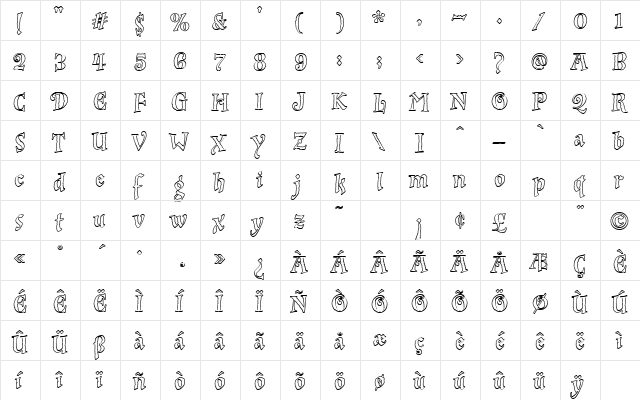
InkPotOutline Regular
Design Context for InkPotOutline Typeface
InkPotOutline brings ornamental detail and strong personality to headlines and identities, where visual impact matters more than quiet functionality.
Font Pairing: Pair with a clean neutral sans-serif for body copy to let InkPotOutline's character lead without overwhelming the composition.
Pro Tip: Use InkPotOutline exclusively at display sizes — it was designed to be seen, not read at length. Let a neutral companion handle body copy.